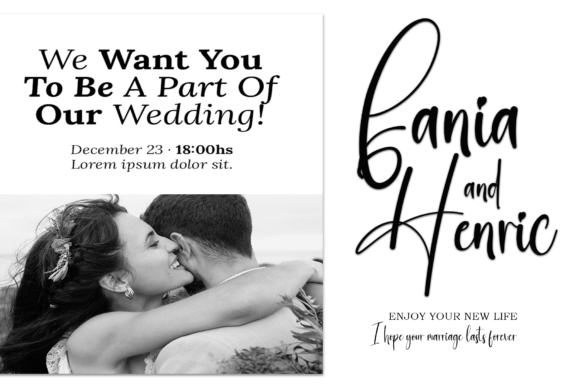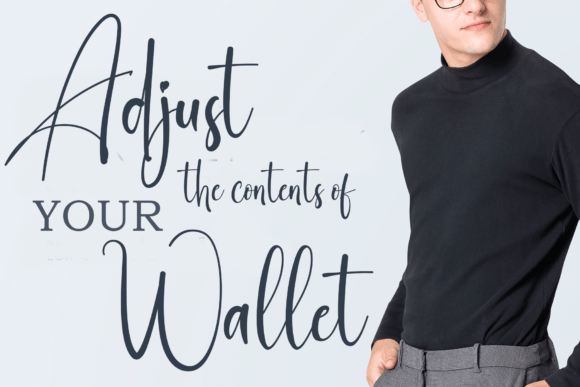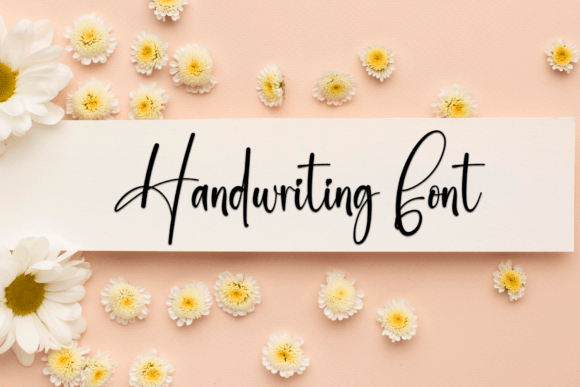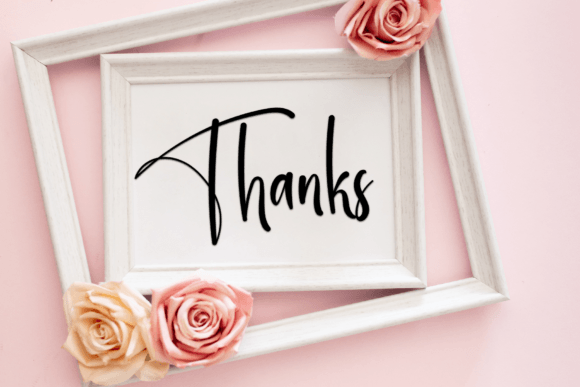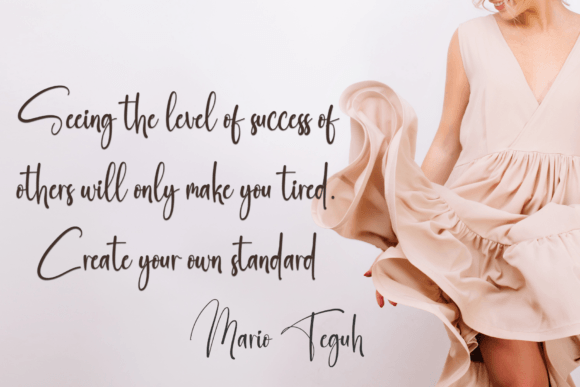
Hocus Font
About Hocus Font
“Hocus” is a gorgeous handwritten font designed to make your work stand out with its elegant and curvy lines. This font is crafted to bring a touch of sophistication to various design applications, including product packaging, branding projects, magazine covers, social media graphics, weddings, or any context where you want to express words above the background.
The elegant and curvy lines of “Hocus” contribute to its visual appeal, adding a sense of refinement to your designs. The handwritten style brings an authentic and personal touch, making it suitable for projects that require a stylish and elegant aesthetic.
Imagine “Hocus” enhancing the branding of a high-end product, where its elegant lines contribute to the overall luxury of the packaging. Picture it on a magazine cover, creating a visually striking and memorable impression. Envision this font used in social media graphics or wedding invitations, where its sophisticated curves elevate the design.
The versatility of “Hocus” makes it adaptable to different design contexts, suitable for both personal and commercial projects. Whether you’re a graphic designer working on diverse projects or an individual looking for a font that adds elegance to your work, “Hocus” invites you to incorporate its beauty into your creative endeavors.